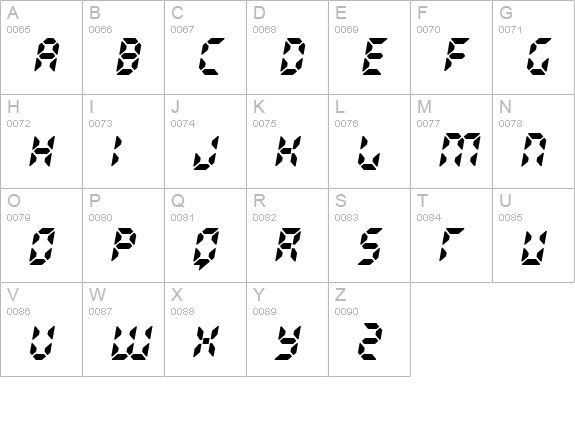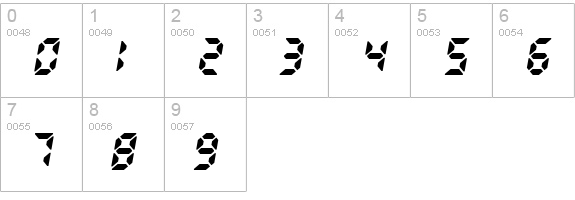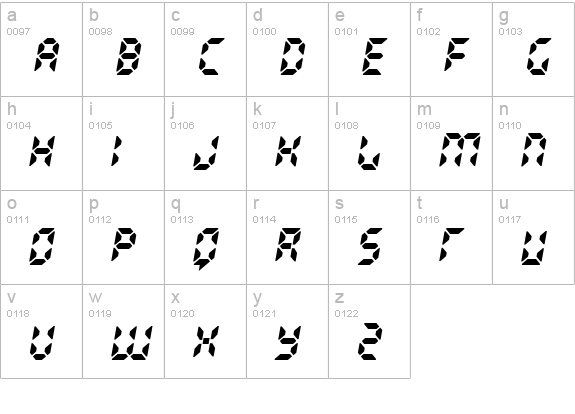
Radioland font is a stunning typeface that exudes a vibrant and energetic personality, making it the perfect choice for any design project seeking to make a bold statement. This font's unique and modern design features sleek and sharp lines, giving it a futuristic and edgy feel. Radioland font is designed with versatility in mind, making it suitable for a wide range of applications, including headlines, logos, posters, packaging, and more. Its eye-catching appeal will instantly capture the attention of viewers and leave a lasting impression. One of the best aspects of Radioland font is that it is freely available to download at FontsMarket.com. This means that designers and creatives can easily access this remarkable font without any cost, enhancing their creative process and allowing them to create stunning designs without breaking the bank. Radioland font offers a multitude of glyphs, including uppercase and lowercase letters, numbers, punctuation marks, and special characters, providing endless possibilities for customization and personalization. Its excellent legibility ensures that your message will be conveyed with utmost clarity, whether it's on a digital screen or in print. Whether you're looking to add a touch of modernity to your branding, create captivating headlines, or simply elevate the aesthetic appeal of your designs, Radioland font is the perfect choice. With its striking visual presence and its availability as a free download at FontsMarket.com, this font is a must-have for any designer seeking to make a strong visual impact.